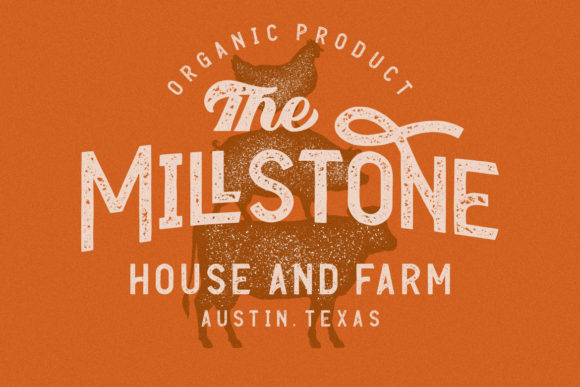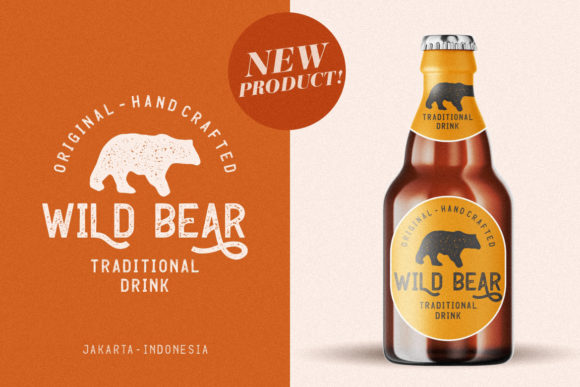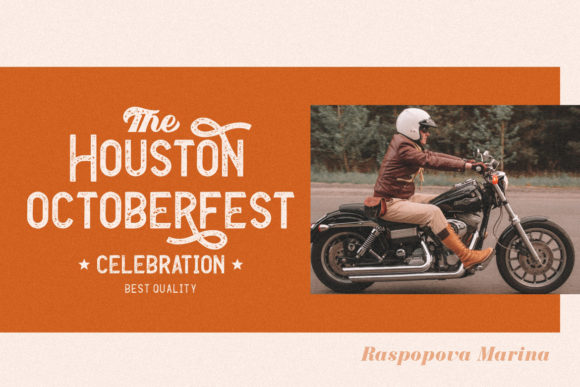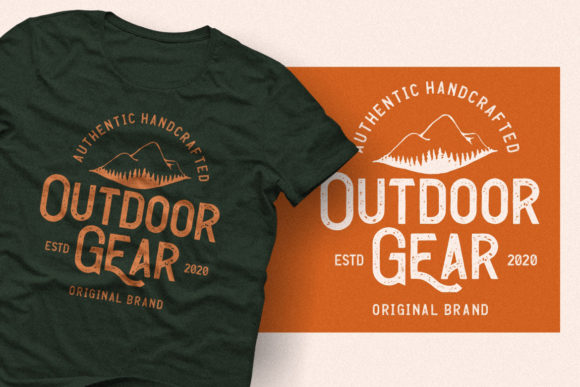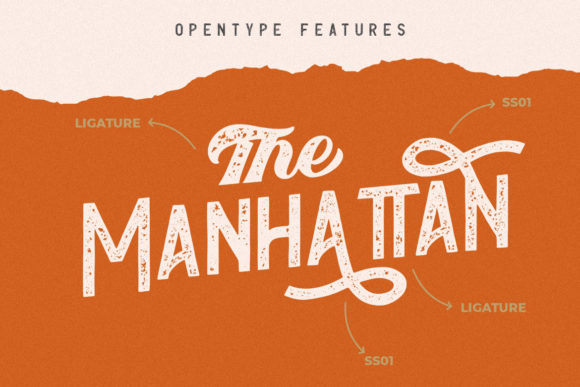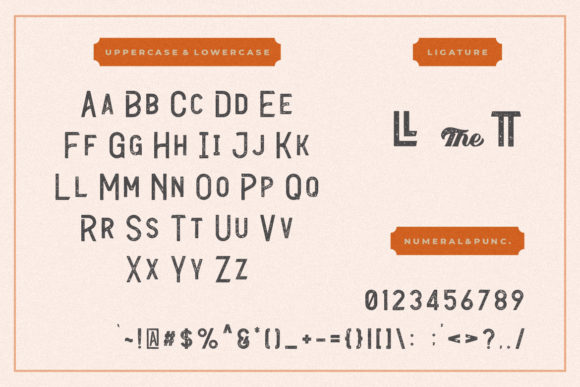
Introducing Enternal Font: The Ultimate Vintage Display Font for Creative Projects
Are you tired of using the same old fonts for your creative projects? Do you want to add a touch of vintage charm to your designs? Look no further than Enternal Font, a stunning vintage display font with stamp textured effects. In this article, we’ll explore the features and benefits of Enternal Font, and how it can elevate your branding projects, logos, social media posts, and more.
What is Enternal Font?
Enternal Font is a unique and eye-catching vintage display font that is perfect for designers and crafters looking to add a touch of nostalgia to their work. With its stamp textured effects, Enternal Font gives your text a distinctive, hand-stamped look that’s sure to grab attention. Whether you’re working on a branding project, logo, social media post, or advertisement, Enternal Font is the perfect choice.
Key Features of Enternal Font
- Vintage Display Font: Enternal Font is a vintage display font that is perfect for headlines, titles, and short text passages.
- Stamp Textured Effects: The font features stamp textured effects that give your text a distinctive, hand-stamped look.
- High-Quality Design: Enternal Font is designed with high-quality craftsmanship in mind, ensuring that your text looks crisp and clear.
- Versatile: Enternal Font is perfect for a wide range of creative projects, from branding and logos to social media posts and product packaging.
Benefits of Using Enternal Font
So why choose Enternal Font for your creative projects? Here are just a few benefits of using this amazing font:
- Adds a Touch of Vintage Charm: Enternal Font adds a touch of vintage charm to your designs, making them stand out from the crowd.
- Increases Readability: The stamp textured effects of Enternal Font make your text more readable, even at small sizes.
- Perfect for Branding: Enternal Font is perfect for branding projects, as it helps to create a unique and recognizable identity for your business.
Project Ideas Using Enternal Font
So what can you create with Enternal Font? Here are just a few project ideas to get you started:
- Branding Projects: Use Enternal Font to create a unique and recognizable identity for your business.
- Logos: Enternal Font is perfect for creating eye-catching logos that stand out from the crowd.
- Social Media Posts: Add a touch of vintage charm to your social media posts with Enternal Font.
- Advertisements: Use Enternal Font to create eye-catching advertisements that grab attention.
- Product Packaging: Enternal Font is perfect for product packaging, as it adds a touch of vintage charm to your products.
- Product Designs: Use Enternal Font to create stunning product designs that stand out from the crowd.
- Labels: Enternal Font is perfect for creating labels that are both functional and visually appealing.
- Photography: Use Enternal Font to add a touch of vintage charm to your photographs.
- Watermark: Enternal Font is perfect for creating watermarks that are both subtle and stylish.
- Invitations: Use Enternal Font to create stunning invitations that set the tone for your event.
- Stationery: Enternal Font is perfect for creating stationery that is both functional and visually appealing.
In conclusion, Enternal Font is a stunning vintage display font with stamp textured effects that is perfect for designers and crafters looking to add a touch of nostalgia to their work. With its high-quality design, versatility, and ease of use, Enternal Font is the perfect choice for a wide range of creative projects. Whether you’re working on a branding project, logo, social media post, or advertisement, Enternal Font is sure to elevate your designs and help you stand out from the crowd.